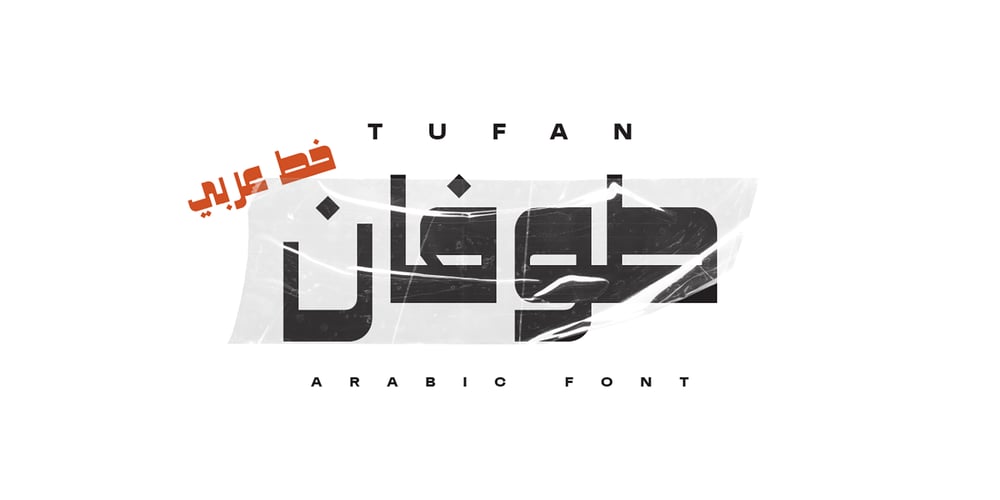
Tufan Font Family was designed by Samir Chajia and published by Samir Chajia. Tufan contains 1 styles and family package options. Tufan is a dynamic Arabic typeface abstracted from Kufi Arabic typescript, manifest a strong contrast between bold and thinner strokes, giving it a stylistic overview suitable for title and retro posters.Tufan is an Arabic word meaning flood or typhoon, it represents the boldness and the power of the font.